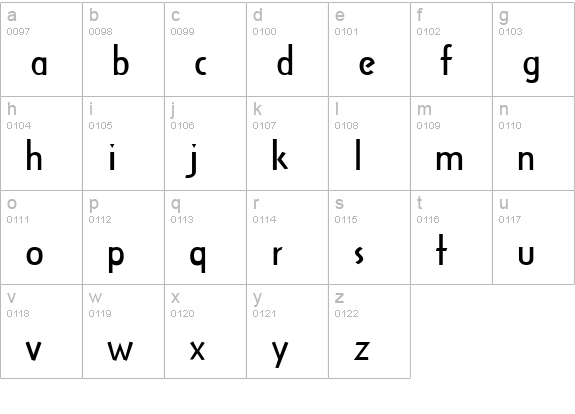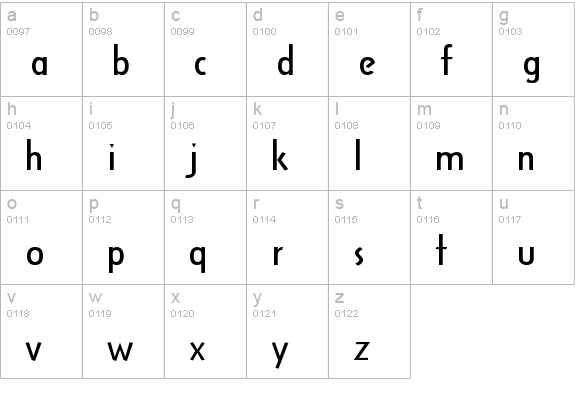
ArcaneBroad Regular Font Details
ArcaneBroad Regular is the standard, neutral variant in the ArcaneBroad typeface family \xE2\x80\x94 well suited to general body text, paragraphs, and standard typographic work.